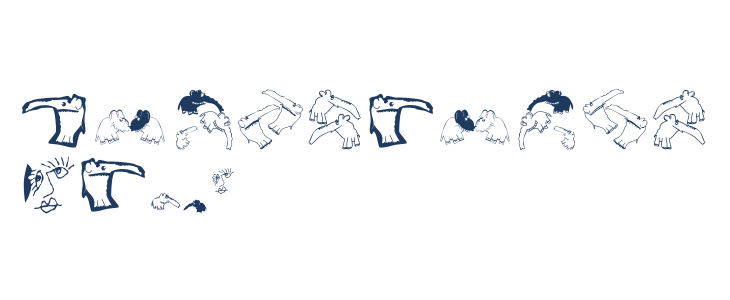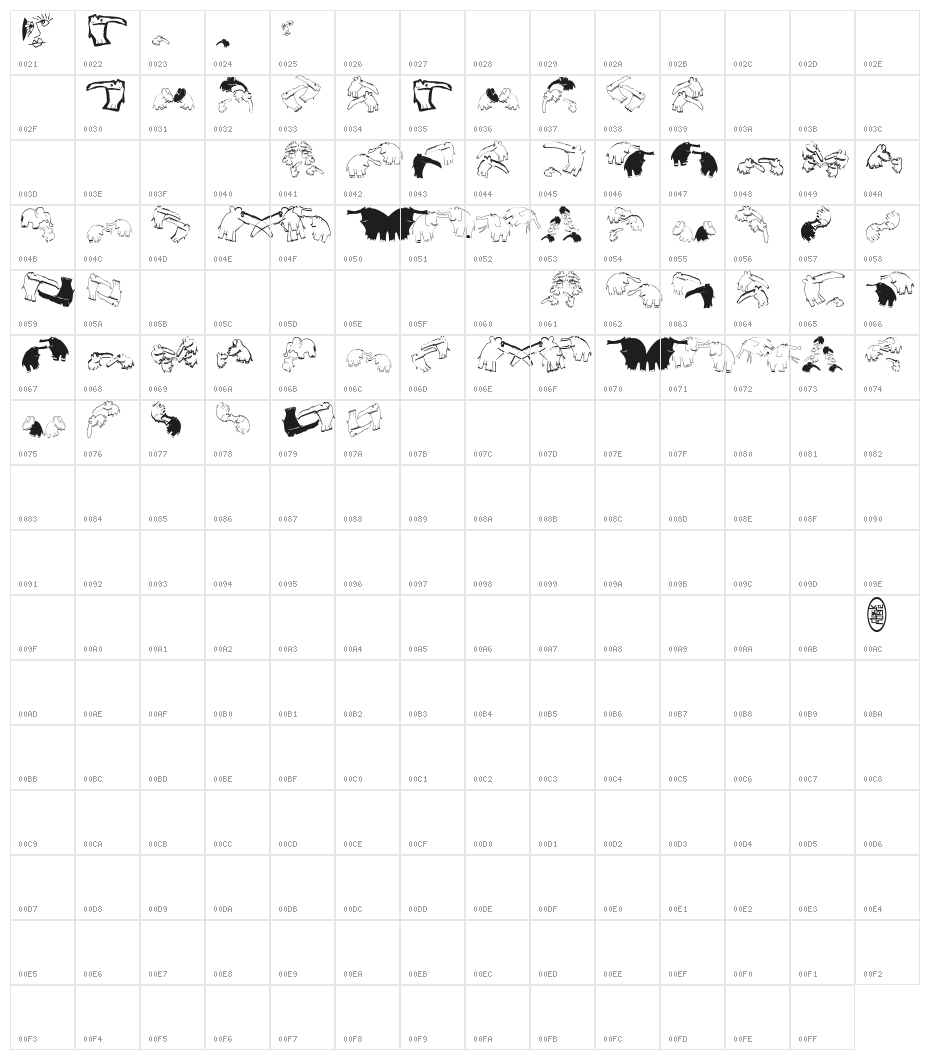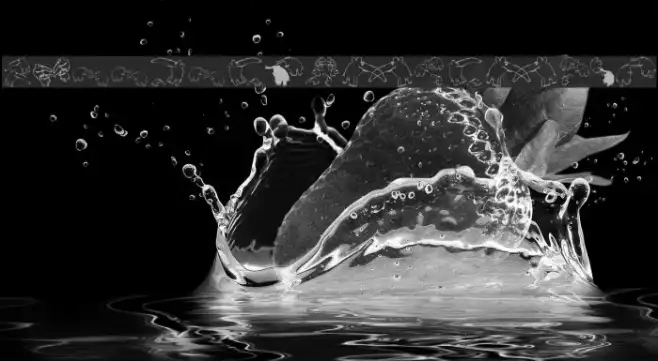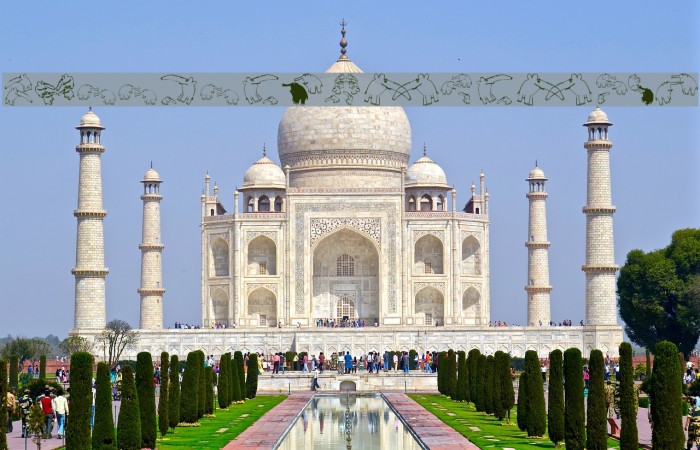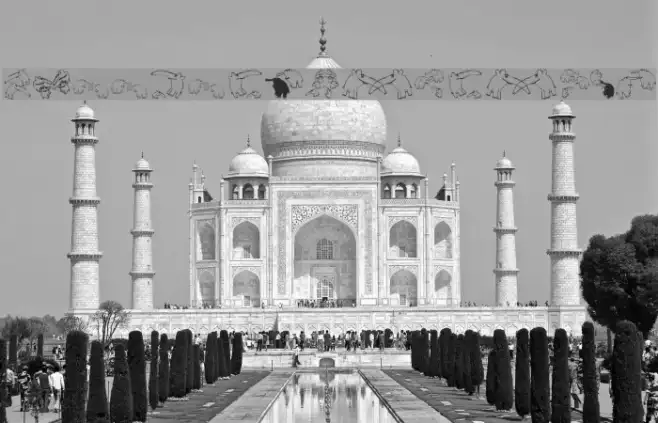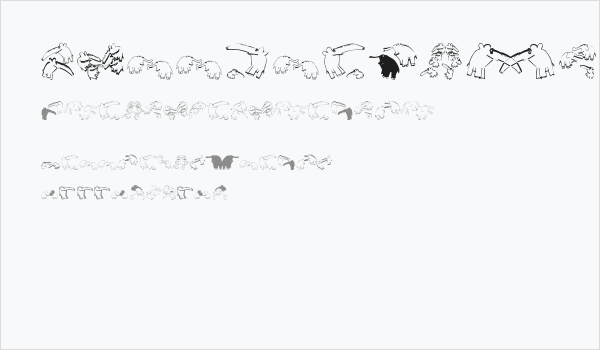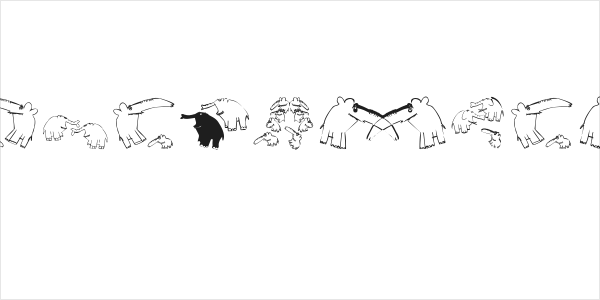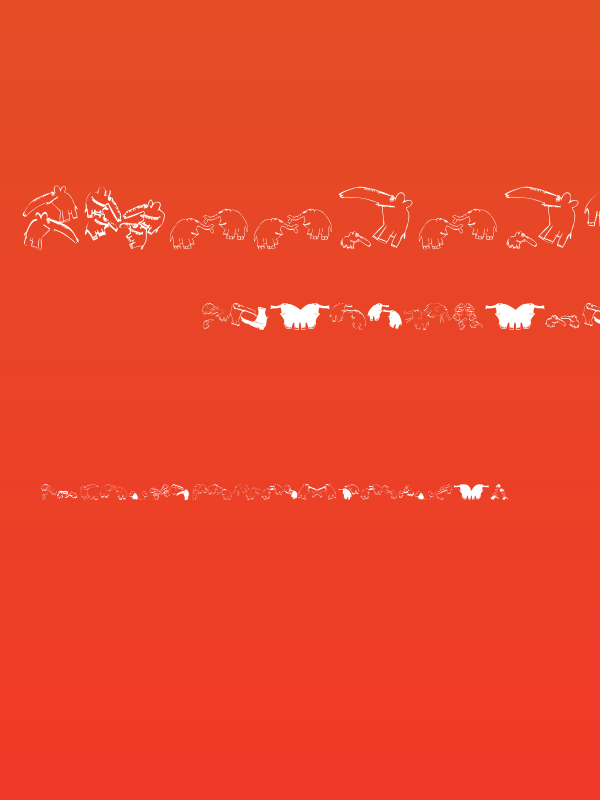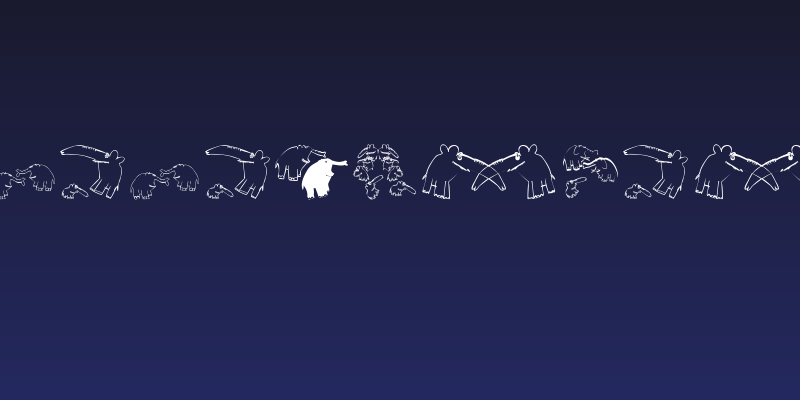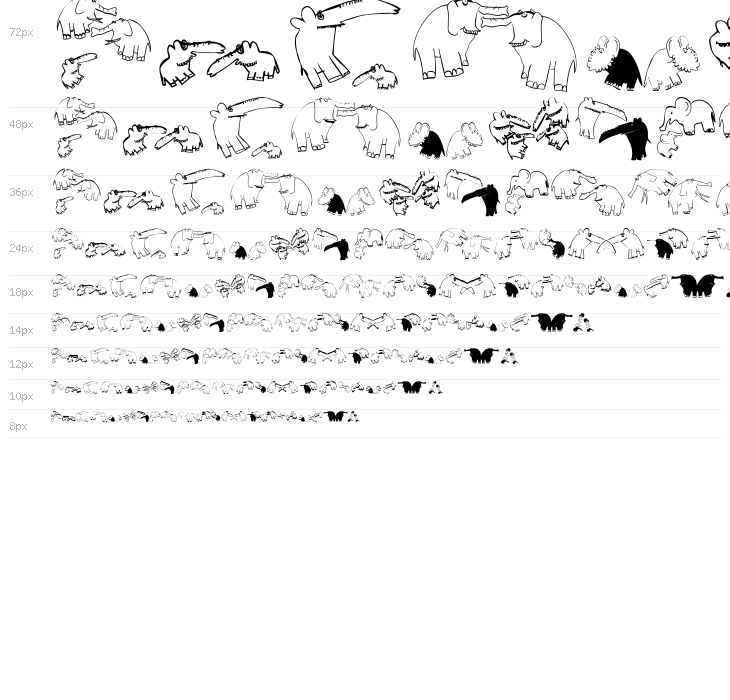
DillElefantenTwo Font
DillElefantenTwo Description
This is a whimsical and playful decorative font featuring stylized elephant illustrations in place of traditional alphanumeric characters. Each character is creatively designed to resemble an elephant in various poses, adding a unique and artistic touch to the font. The characters are a mix of solid black and outlined designs, providing a dynamic visual contrast. The font is highly decorative and not intended for standard text use, making it ideal for creative projects that require a fun and imaginative element.
Overall StyleWhimsical, Artistic
Use CaseLogos, Posters, Creative Projects
Proposed ProjectsIdeal for children's books, playful posters, creative invitations, and any project that benefits from a whimsical and artistic touch.